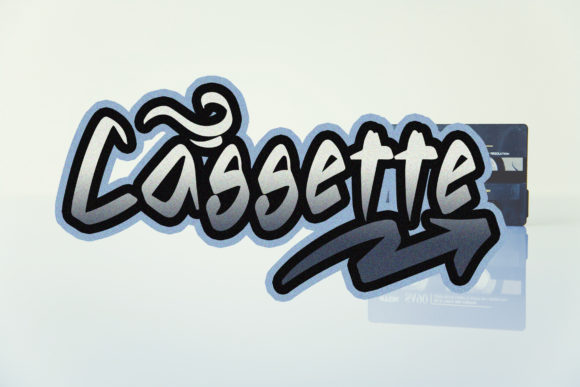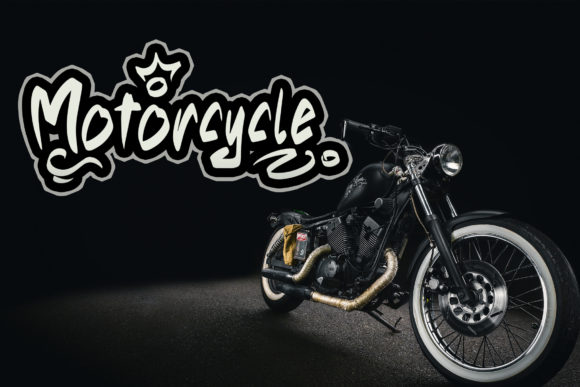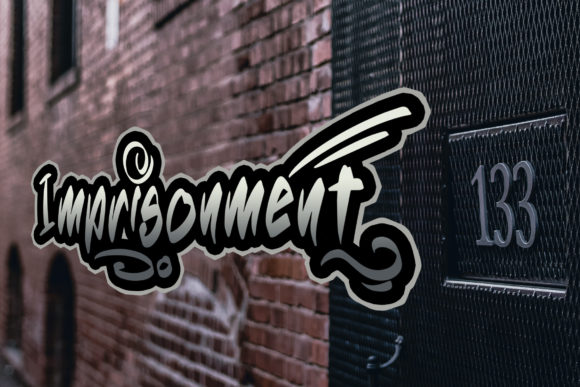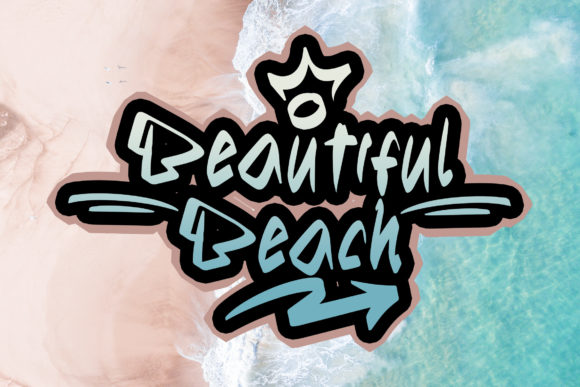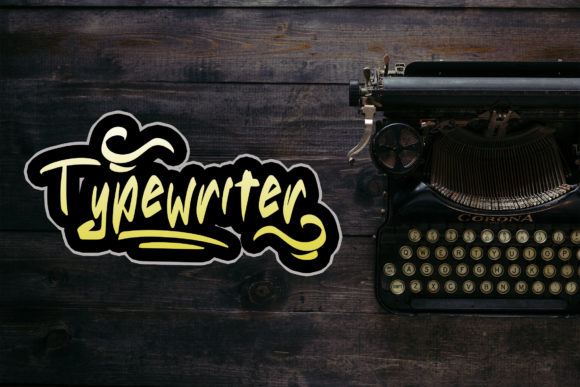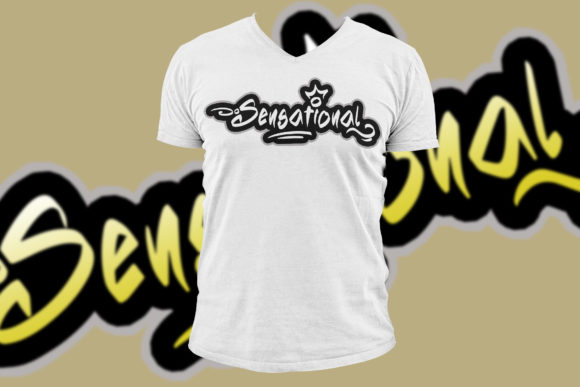
Introduction to Paper Ropped Font
As you sit in front of your computer, staring at a blank canvas, you know that creative spark is just waiting to ignite. You’ve been searching for the perfect font to bring your latest design project to life, something that exudes energy and style. That’s where the Paper Ropped Font comes in – a high-quality, graffiti-styled display font that’s guaranteed to make your design stand out.
With its street art vibe and versatility, the Paper Ropped Font is a valuable resource for designers looking to add a touch of edginess to their work. Whether you’re creating t-shirts, sportswear logos, or advertisements, this font is sure to make a lasting impression. And the best part? You can download it for free, making it a must-have addition to your design arsenal.
From concept to completion, the Paper Ropped Font is the perfect companion for your next creative project. Its transparent background allows for seamless integration into any design, while its high-quality design ensures that your work looks professional and polished. So why wait? Dive into the world of Paper Ropped Font and unlock a new level of creative potential.
Key Features of Paper Ropped Font
- High-quality, hand-drawn design perfect for creative projects requiring a unique touch
- Transparent background option allows for seamless integration into designs with complex backgrounds
- Available in a single weight, ideal for projects where a consistent font style is desired
- Designed with a distressed, vintage aesthetic, adding a touch of nostalgia to any design
- Perfect for designers looking for a high-quality, unique font for their next creative project
Honest Review: Paper Ropped Font
I recently stumbled upon the Paper Ropped Font, and I must say it’s been a game-changer for my creative projects. The high quality of this font is evident in its smooth lines and subtle texture, making it perfect for a variety of design applications.
What works well: ✨ The font’s unique aesthetic is both modern and vintage, allowing it to seamlessly fit into any design style. It’s also incredibly versatile, suitable for use in logos, business cards, posters, and even digital interfaces. The transparent background feature makes it easy to layer and combine with other design elements.
- High-quality design suitable for various creative projects
- Transparent background for easy layering and combination
- Unique aesthetic blends modern and vintage styles
However, there are some limitations: ⚠️ The font may not be suitable for extremely small text sizes, as the texture can become difficult to read. Additionally, some users may find the font’s texture to be too subtle, which can make it blend into the background.
Overall, I’m thoroughly impressed with the Paper Ropped Font. Its unique design and versatility make it a valuable addition to any designer’s toolkit. While it may have some limitations, the benefits far outweigh the drawbacks, making it a must-have resource for any creative project.
Paper Ropped Font
Tips for Getting the Most Out of Paper Ropped Font
To get the most out of the Paper Ropped Font, experiment with different font sizes, colors, and styles. Use the font in combination with other design elements to create a unique and eye-catching design. Don’t forget to adjust the background to match your design.
The Paper Ropped Font is ideal for a variety of creative projects, including invitations, greeting cards, and social media graphics. Its high-quality design and transparent background make it perfect for creating visually appealing designs.